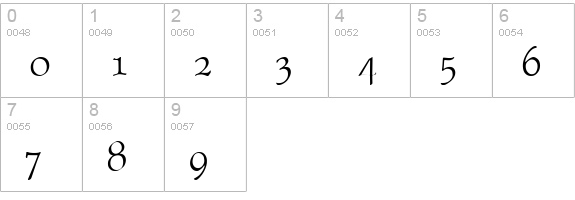
Albion Font Details
Albion font is a stunning typeface that exudes elegance and sophistication. With its classic yet modern design, Albion is perfect for a wide range of design projects, from branding to editorial design. The clean lines and timeless appeal of Albion make it a versatile choice for any designer looking to add a touch of refinement to their work. The best part about Albion font is that it is completely free to download at FontsMarket.com. This means that you can access this premium font without having to worry about any licensing fees or restrictions. Whether you are a seasoned designer or just starting out, Albion font is a fantastic addition to your font collection. Download Albion font today from FontsMarket.com and elevate your designs with its timeless beauty and versatility.